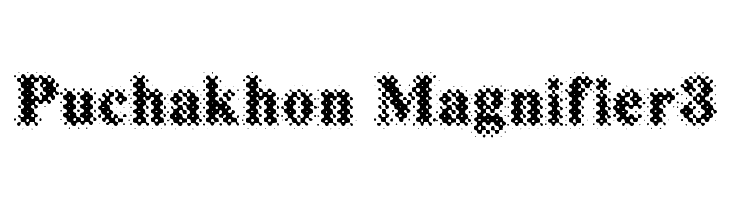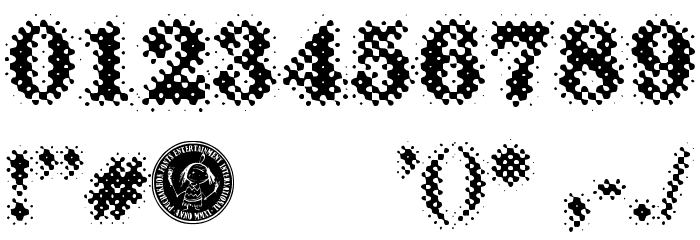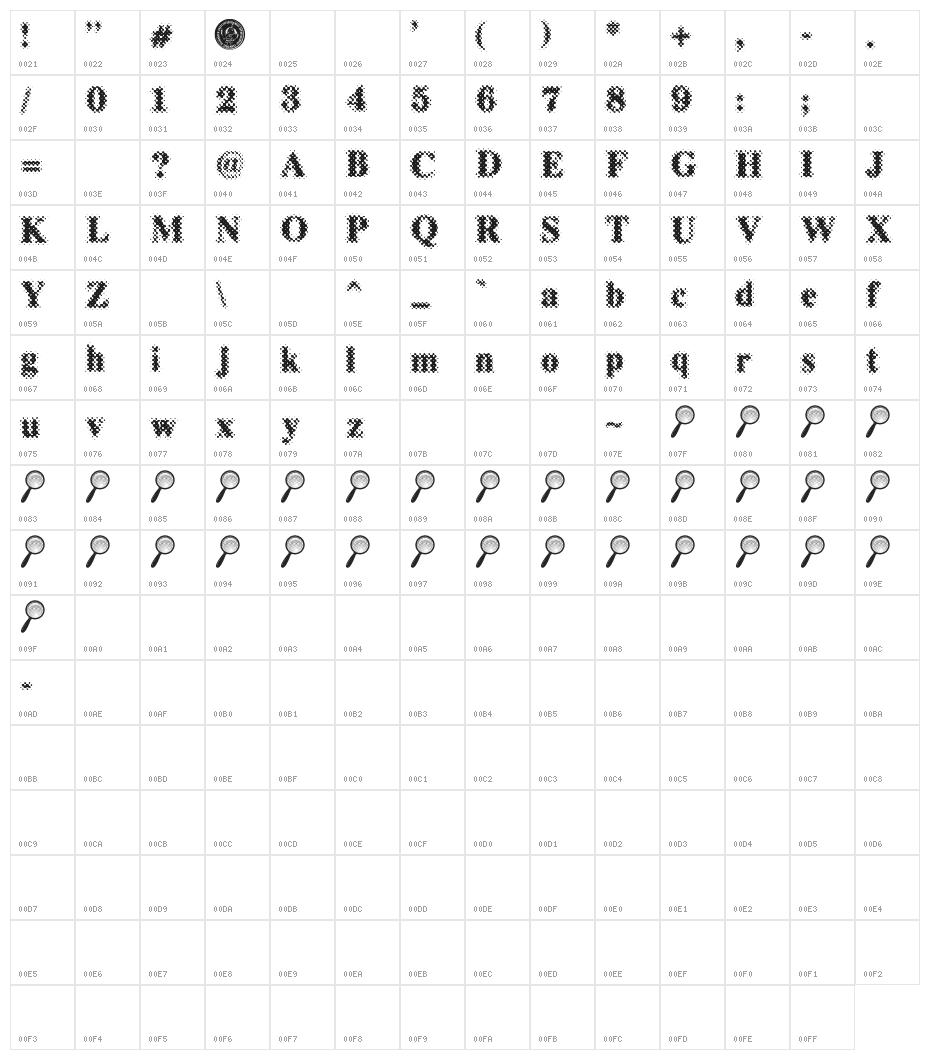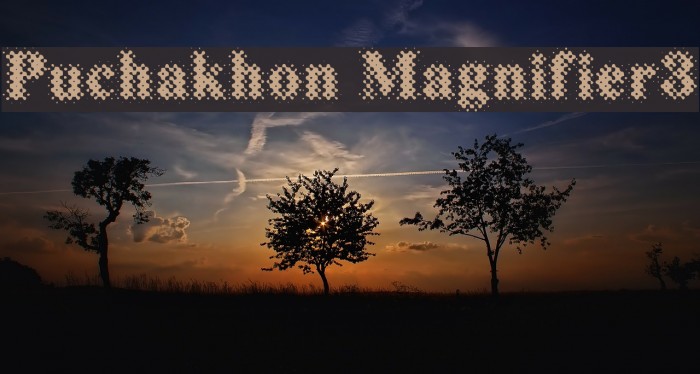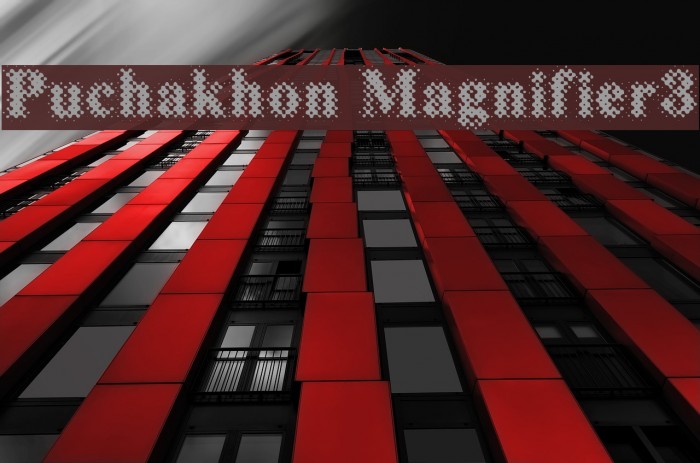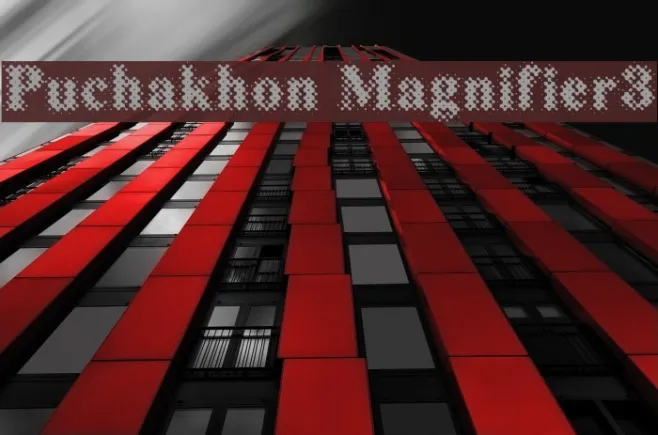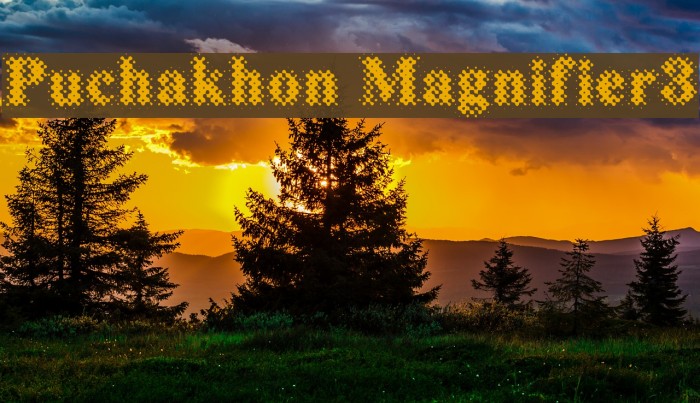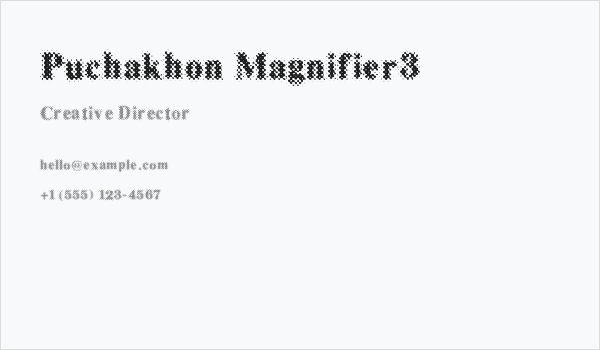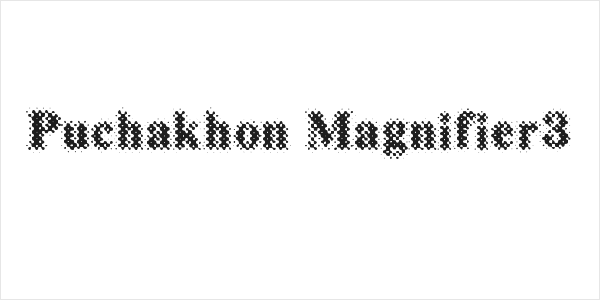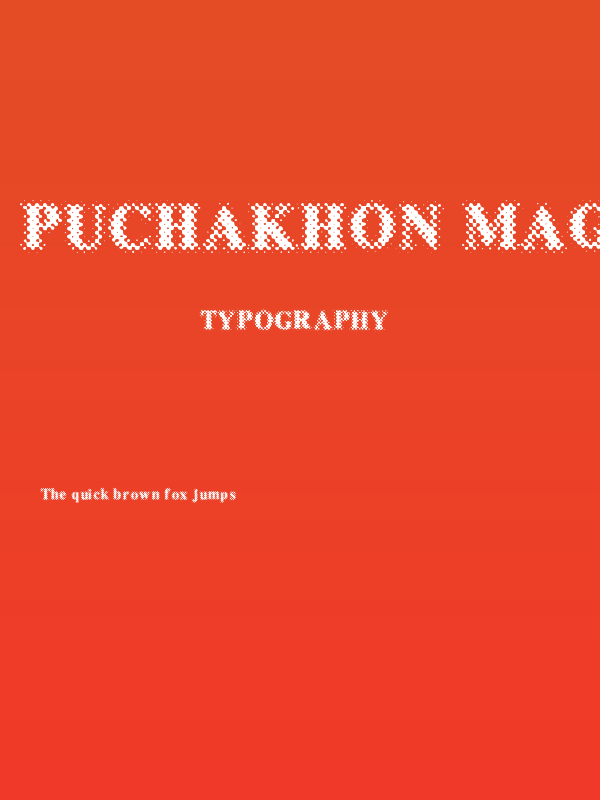
Puchakhon Magnifier3 Font
Puchakhon Magnifier3 Description
This font features a unique, dotted pattern that creates a visually striking effect. Each character is composed of small, evenly spaced dots, giving it a textured and dynamic appearance. The uppercase and lowercase letters maintain a consistent style, with rounded edges and a bold presence. Numbers and special characters follow the same dotted theme, ensuring uniformity across all glyphs. This font is ideal for projects that require a distinctive and eye-catching design, such as posters, logos, or digital artwork. Its playful yet structured form makes it versatile for various creative applications.
| Proposed Projects | Ideal for posters, logos, digital artwork, and creative designs requiring a standout font. |